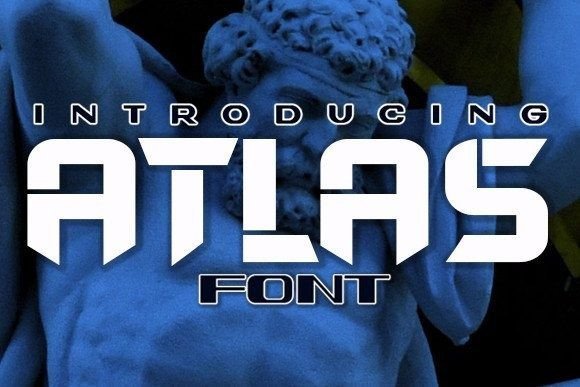
Unlock the Power of Typography with Atlas Font
You know that feeling when a font choice just clicks, and your design takes off in a whole new direction? For many designers, it’s a moment of pure inspiration – the spark that sets their creative engine firing on all cylinders. That’s exactly what the Atlas Font aims to deliver: an elegant and sharp techno display font that will captivate your audience and elevate your work to new heights.
Whether you’re crafting a bold banner, a striking headline, or a stylish shirt design, the Atlas Font is the perfect companion for your creative journey. Its versatility and attention-grabbing qualities make it an invaluable asset for designers looking to make a lasting impression. With the Atlas Font, you’ll be able to convey your message with clarity and style, setting yourself apart from the crowd.
Atlas Font Key Features
- Font Family: Atlas Font is a sans-serif font family with multiple weights and styles, including Thin, Light, Regular, Medium, Bold, and Black.
- Character Set: Atlas Font includes a comprehensive character set, covering Latin, Greek, Cyrillic, and other languages, with over 700 glyphs.
- Unique Characteristics: Atlas Font features a unique, modern design with a geometric feel, making it suitable for a wide range of applications, from corporate branding to digital interfaces.
Designer Review: Atlas Font
Overall, I think Atlas Font has a lot going for it ✨. The font’s unique blend of modern and vintage elements creates a visually appealing look that’s sure to grab attention. The font’s wide range of weights and styles also makes it incredibly versatile, allowing designers to use it in a variety of contexts, from body text to headings.
- The font’s bold and condensed weights are particularly effective at adding a touch of sophistication to headings ✨.
- Atlas Font’s wide range of languages supported makes it a great choice for global brands ✨.
- The font’s clean and minimalist design also makes it a great choice for digital products, such as apps and websites ✨.
However, there are a few limitations to consider ⚠️. The font’s more ornate weights can feel a bit cluttered and overwhelming, especially in smaller text sizes. Additionally, the font’s lack of italic and oblique styles may limit its usability in certain contexts.
Overall, I think Atlas Font is a solid choice for designers looking for a modern, versatile font. While it may have some limitations, its unique design and wide range of weights and styles make it a great addition to any design arsenal.
Getting the Most Out of Atlas Font
Atlas Font is ideal for:
Typography-based designs, such as logos and branding materials.
Editorial content, such as news articles and blog posts.
Marketing materials, such as brochures and flyers.
Alternatives to Atlas Font for Designers
Monserrat is a modern sans-serif font designed for urban environments. It’s ideal for use in headings, titles, and body text where a clean, minimalist aesthetic is desired. Montserrat is a more aggressive font compared to Atlas Font, making it better suited for bold statements and attention-grabbing headlines.
Comparison: Montserrat is more geometric and condensed than Atlas Font, giving it a more modern feel. Atlas Font has a more rounded and humanist feel, making it more suitable for text-heavy content.
Lato is a sans-serif font with a friendly and approachable feel. It’s suitable for use in body text, headings, and titles where a clear and readable font is desired. Lato is a more neutral font compared to Atlas Font, making it a good choice for content where a subtle, elegant feel is desired.
Comparison: Lato is more rounded and humanist than Atlas Font, giving it a softer feel. Atlas Font has a more geometric feel, making it better suited for modern and tech-related content.